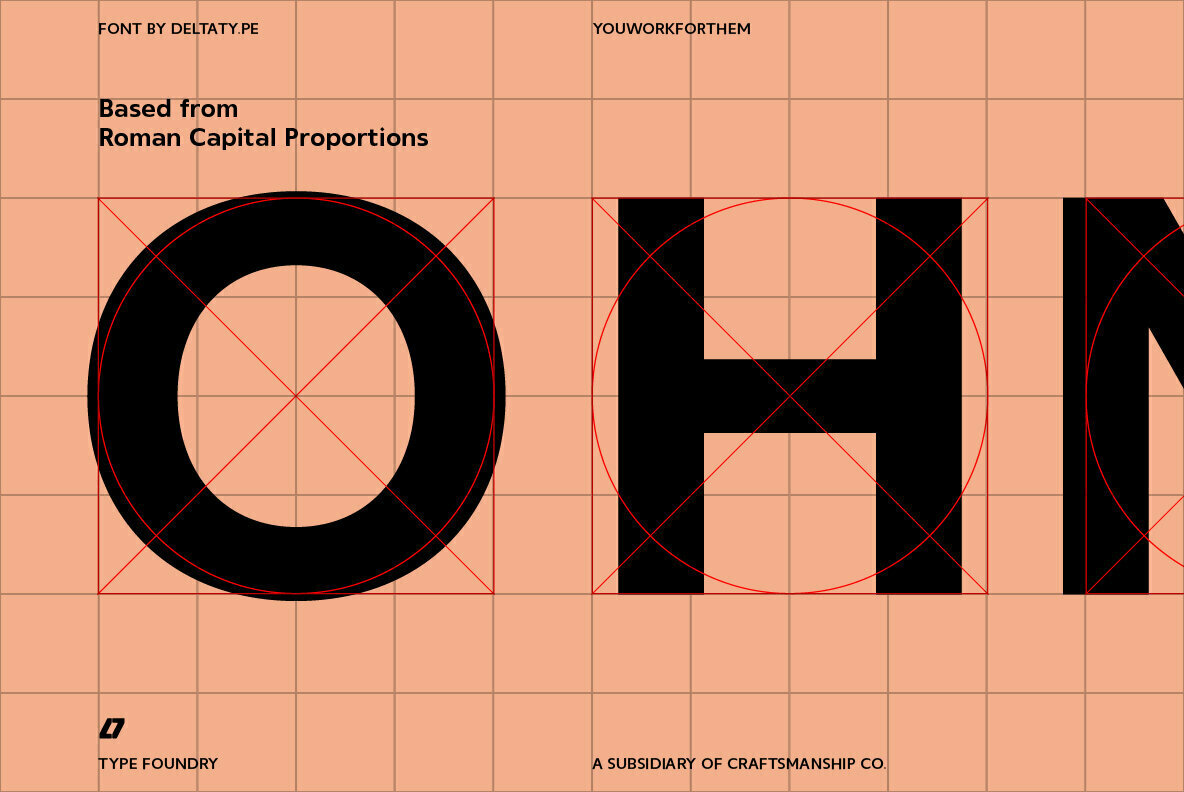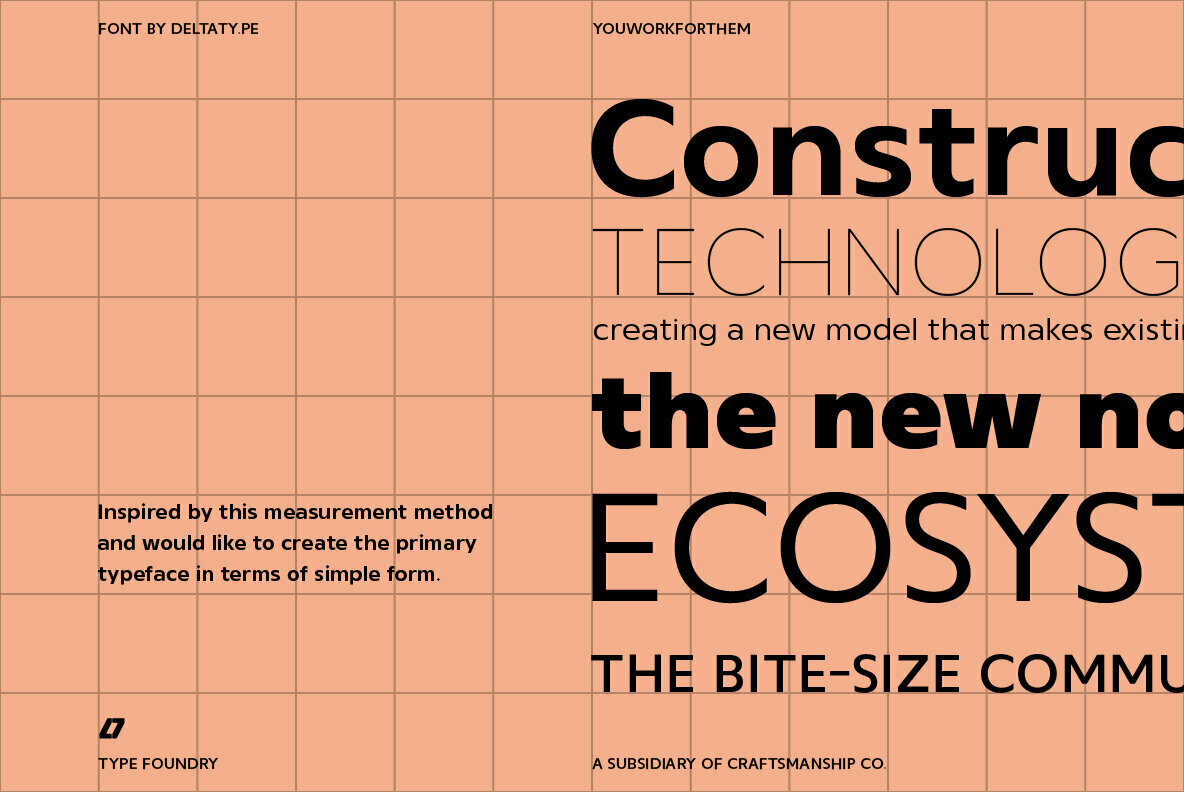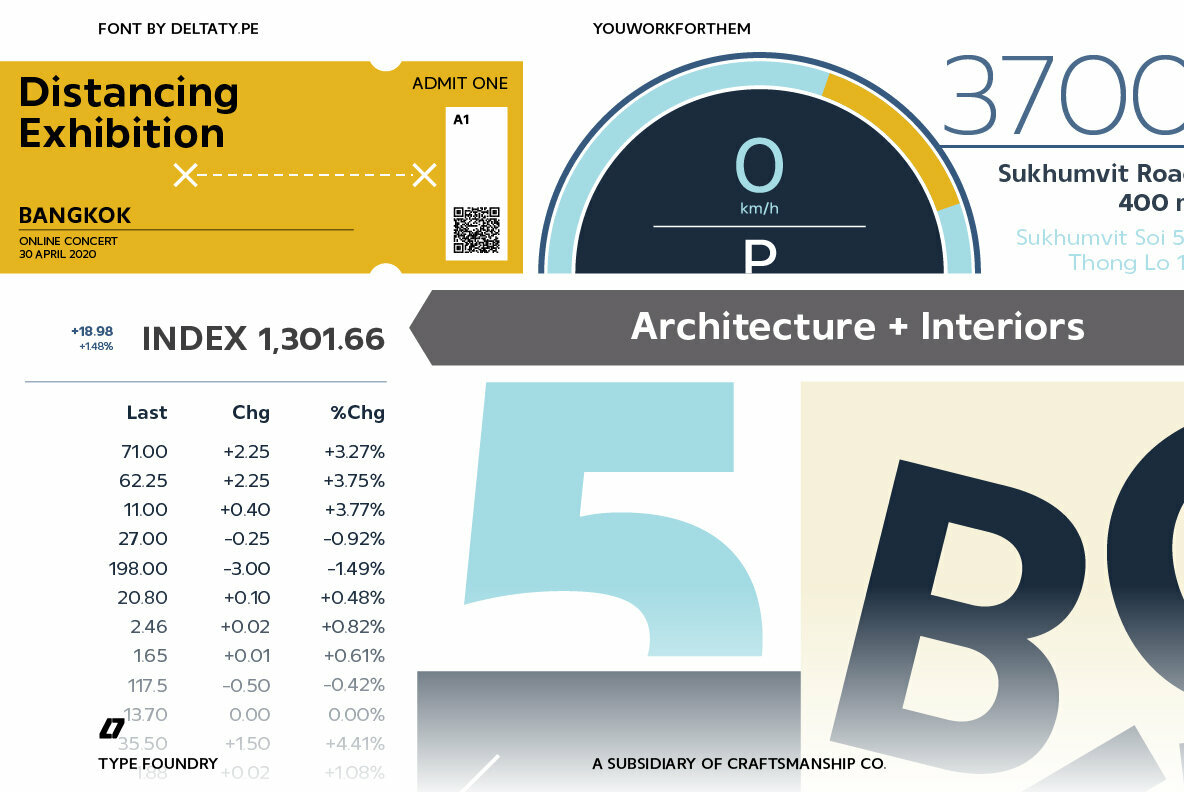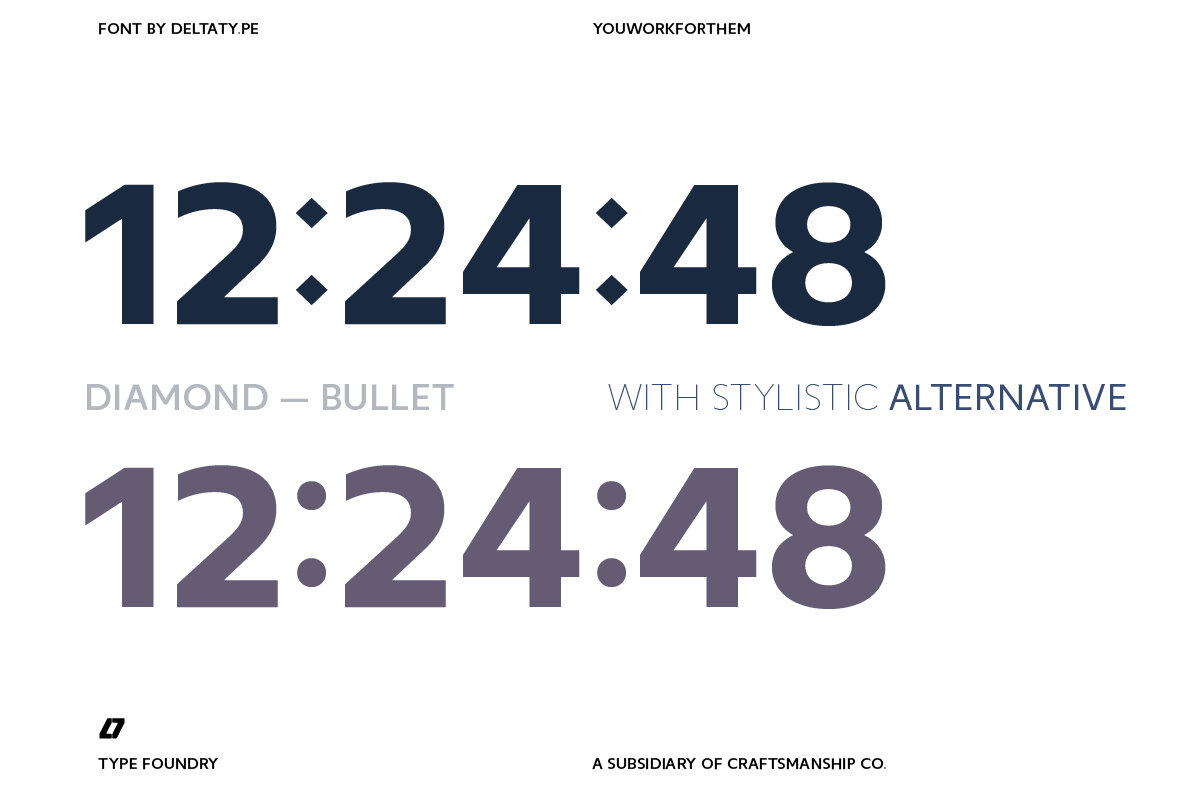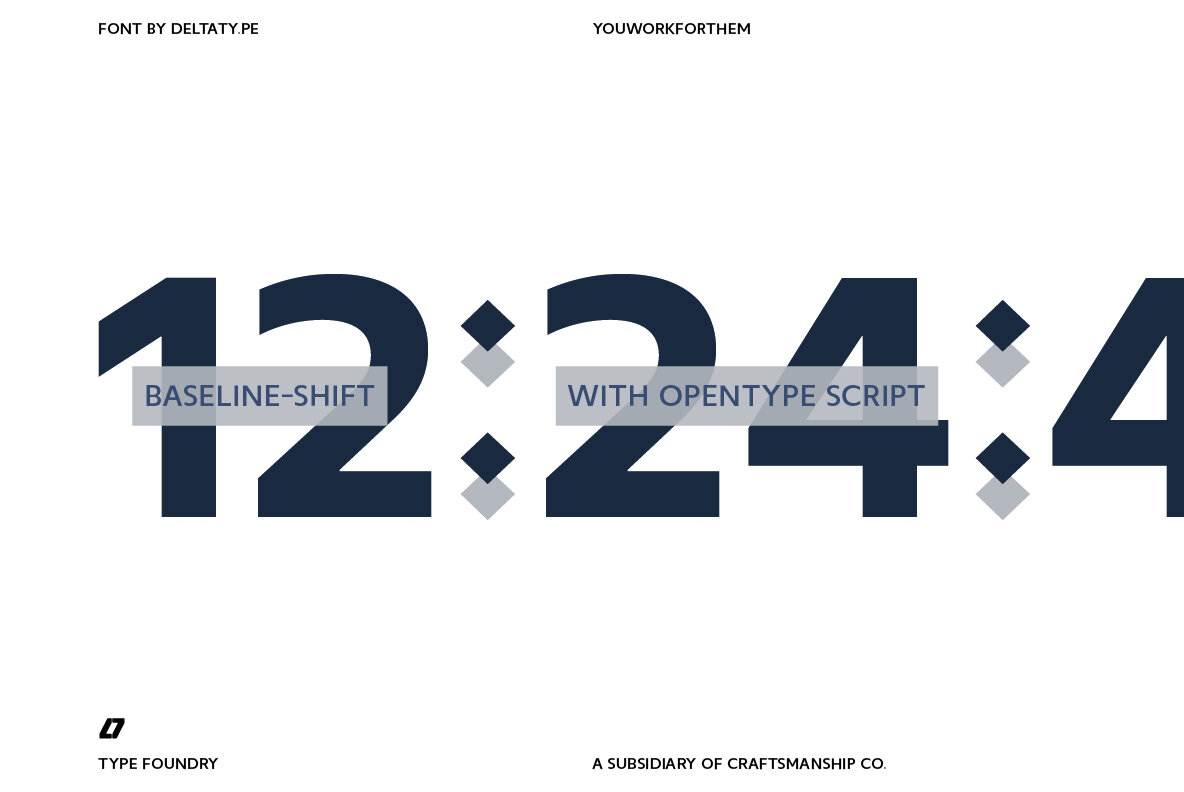
Mero Thai Font
Embarking on a typographic journey through time, Mero Thai draws inspiration from the time-honored Roman Capital Proportions, elegantly showcased in the Trajan Inscription. Crafted with a minimalist approach, each letter is meticulously shaped to adhere to precise visual proportions, delivering a clean and unobtrusive sans serif aesthetic. This typeface, though subtle in style, leaves an indelible mark of sophistication and reliability in any media application. Designed to bridge the gap between ancient influence and contemporary digital environments, Mero Thai seamlessly integrates into various contexts without overtaking the visual narrative. Its remarkable versatility not only supports over 30 languages but also offers a robust selection of nine weights. The configuration aligns perfectly with standard CSS font-weight mappings, ensuring that Mero Thai harmonizes beautifully within digital layouts, enhancing the reading experience while maintaining visual integrity.Mero Thai: A Typeface Rooted in Roman Tradition
Deltatype is a Thai type design studio known for its innovative approach to the Thai alphabet, crafting modern fonts that honor the language's unique visual character. Their work responds to the evolving role of typography in Thai design, where letterforms often serve as expressive design components, not just...